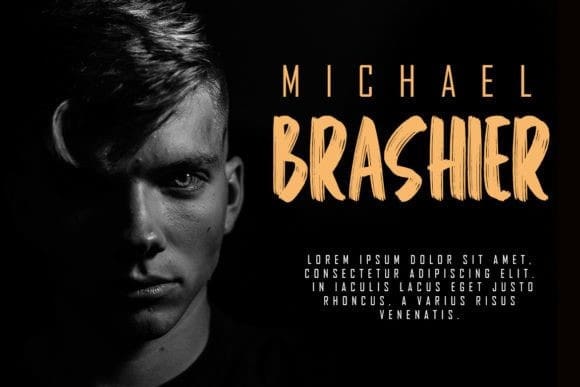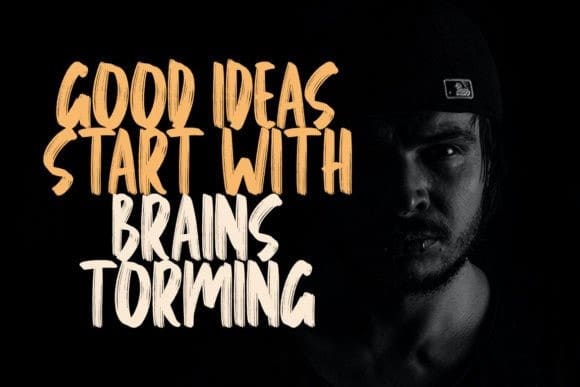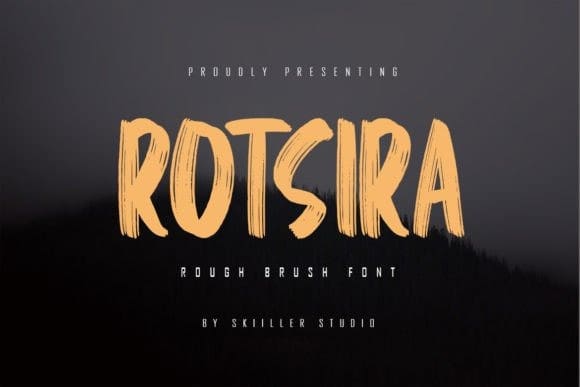
Rotsira Brush Font
Rotsira Brush Font is a dry hand-brushed display font designed to combine perfectly. It allows you to create stunning designs quickly and efficiently. It is ideal for logos, handwritten quotes, product packaging, headers, posters, merchandise, social media & greeting cards.